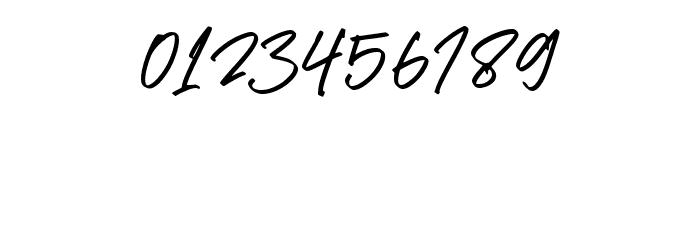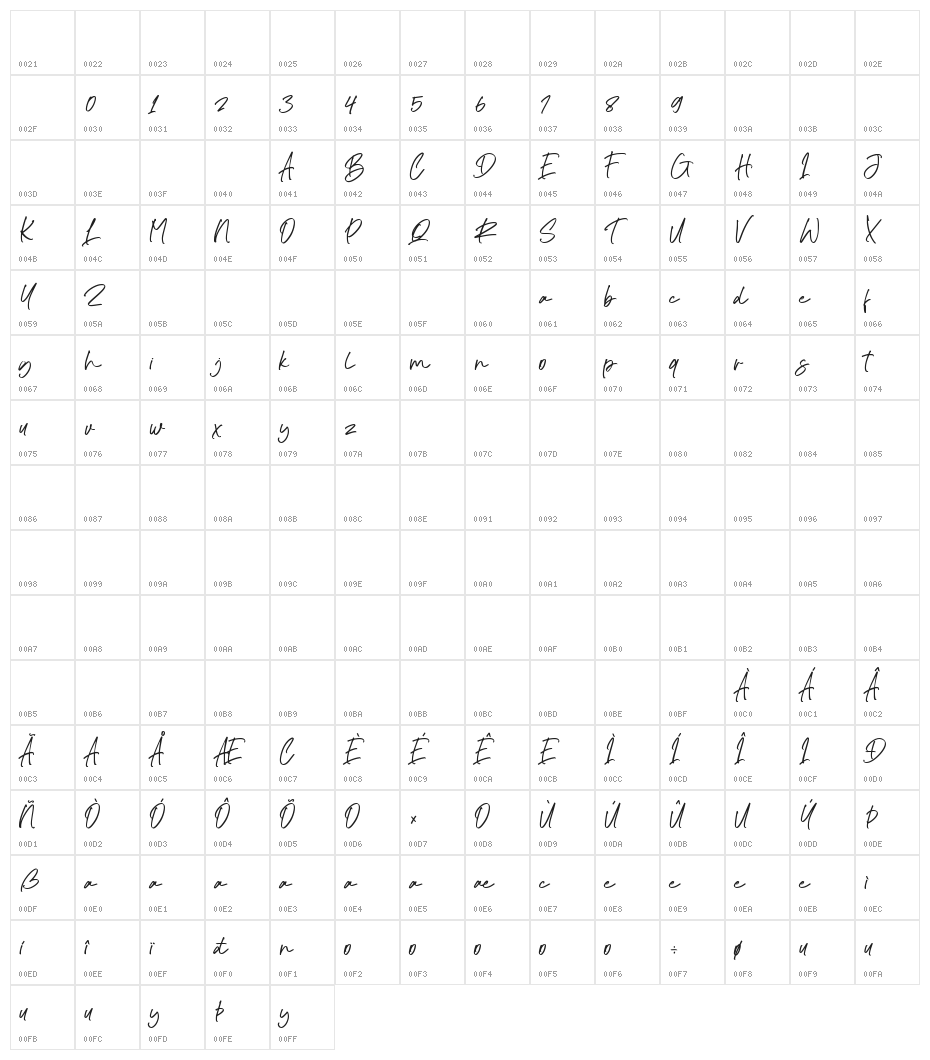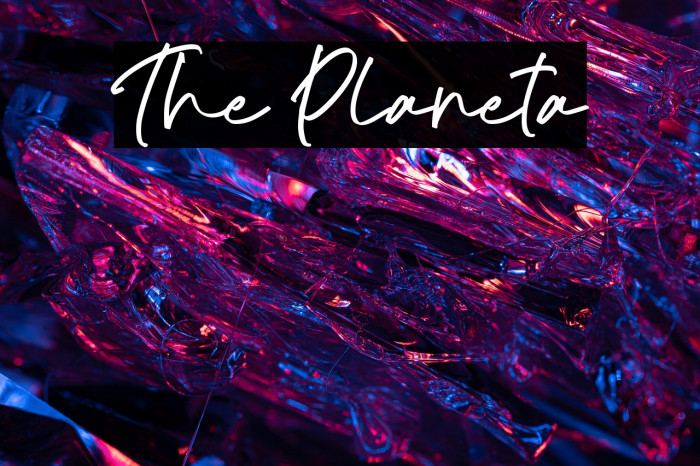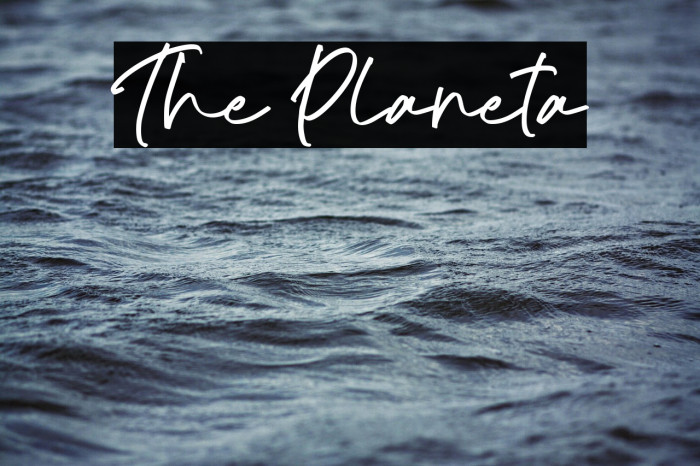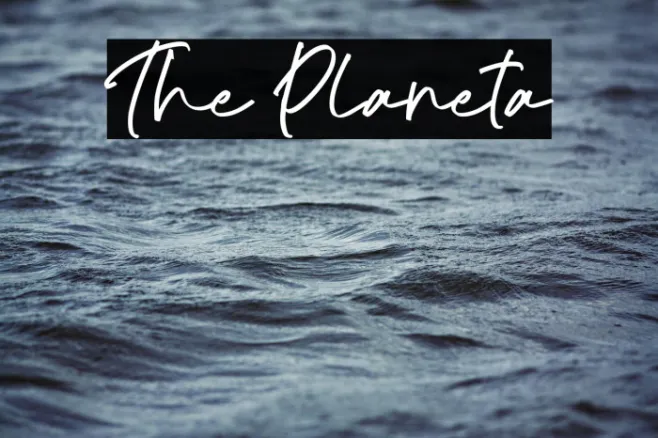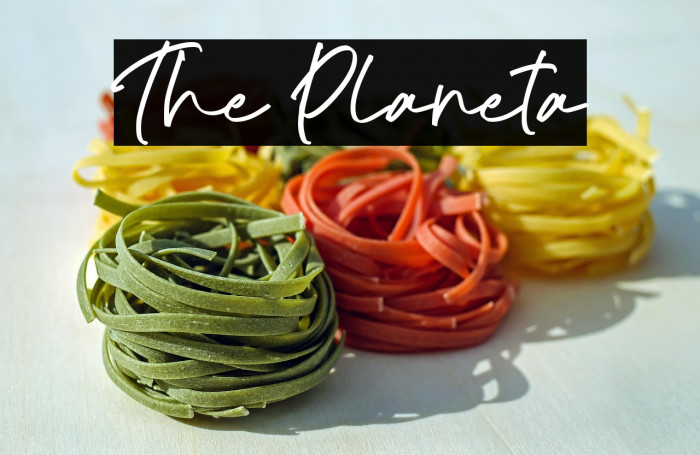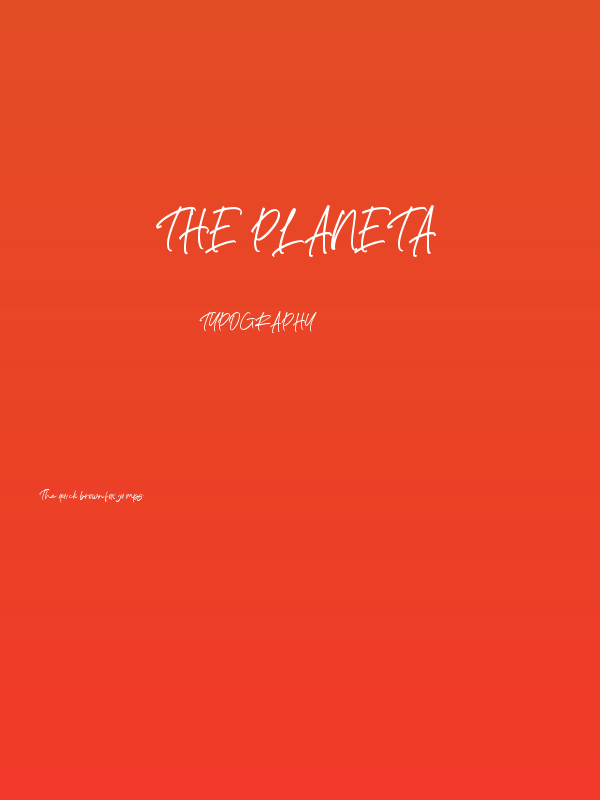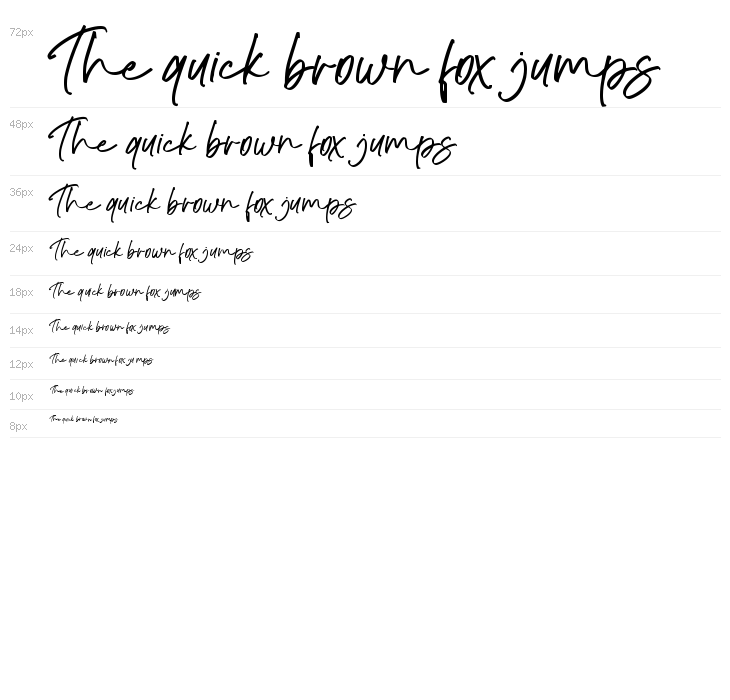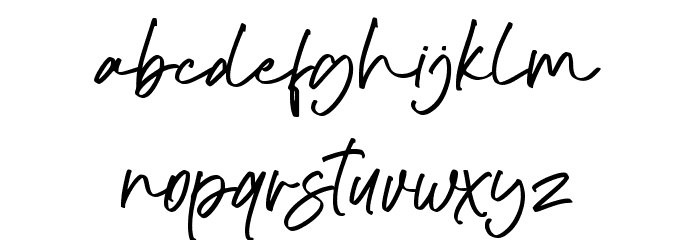
The Planeta Font
The Planeta Description
This font features a lively and expressive handwritten style, characterized by its fluid and dynamic strokes. The uppercase letters exhibit a bold and confident appearance, while the lowercase letters maintain a consistent flow, enhancing readability. The numerals are well-integrated with the overall design, maintaining the same energetic feel. The special characters complement the alphabet with a similar flair, making this font versatile for various creative applications. Its organic and spontaneous look makes it ideal for projects that require a personal touch.